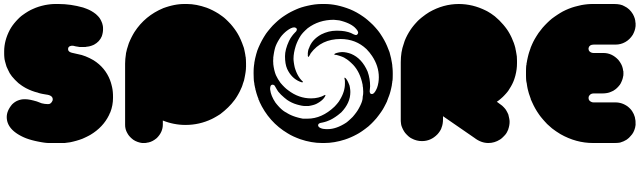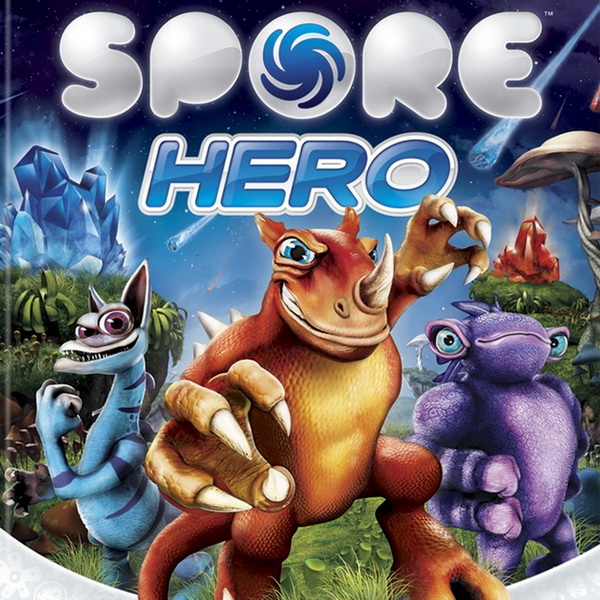
Spore Font
Fonts in UseSpore is a life simulation game developed by Maxis and published by Electronic Arts. It allows players to create and evolve their own unique species from microscopic organisms to complex civilizations, exploring and interacting with other player-created creatures in a vast virtual universe.
The typography used in the video game's title resembles a font called Sporedom, created by Randy Ford. This free font features capital letters and a selection of punctuation marks, and it can be downloaded from the Fonts Used Section.